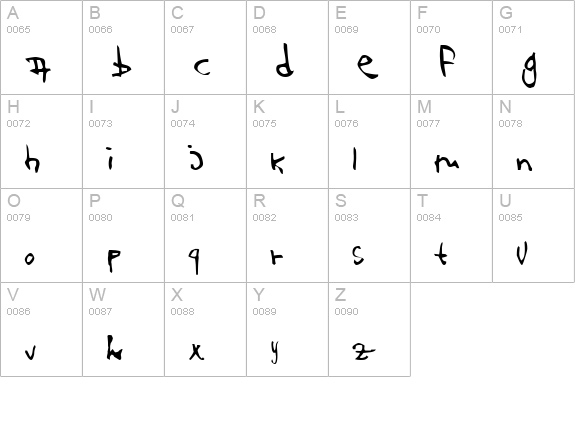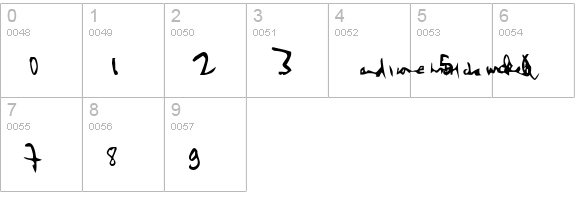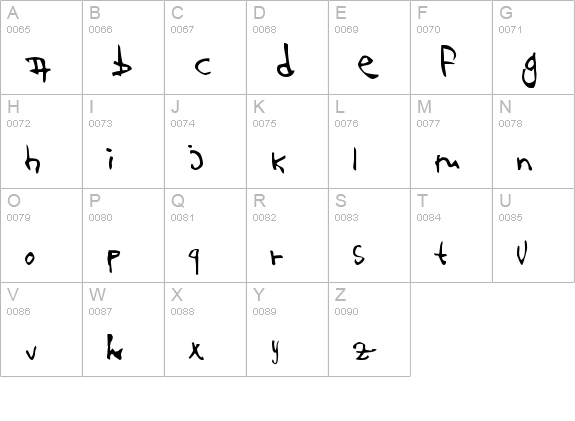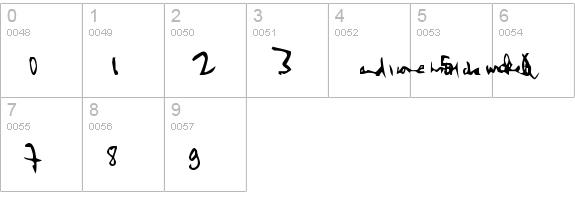
123 and... Font Details
123 and... font is a unique and versatile typeface that combines elegance with a touch of playfulness. Featuring a wide range of characters and glyphs, this font is perfect for various design projects, from branding to editorial design. Its sleek lines and modern aesthetic make it a great choice for both digital and print applications. Best of all, 123 and... font is available for free download at FontsMarket.com. This means you can easily add this stylish font to your collection without any cost. Don't miss out on the opportunity to enhance your designs with this beautiful and eye-catching typeface. Download 123 and... font today and let your creativity shine!